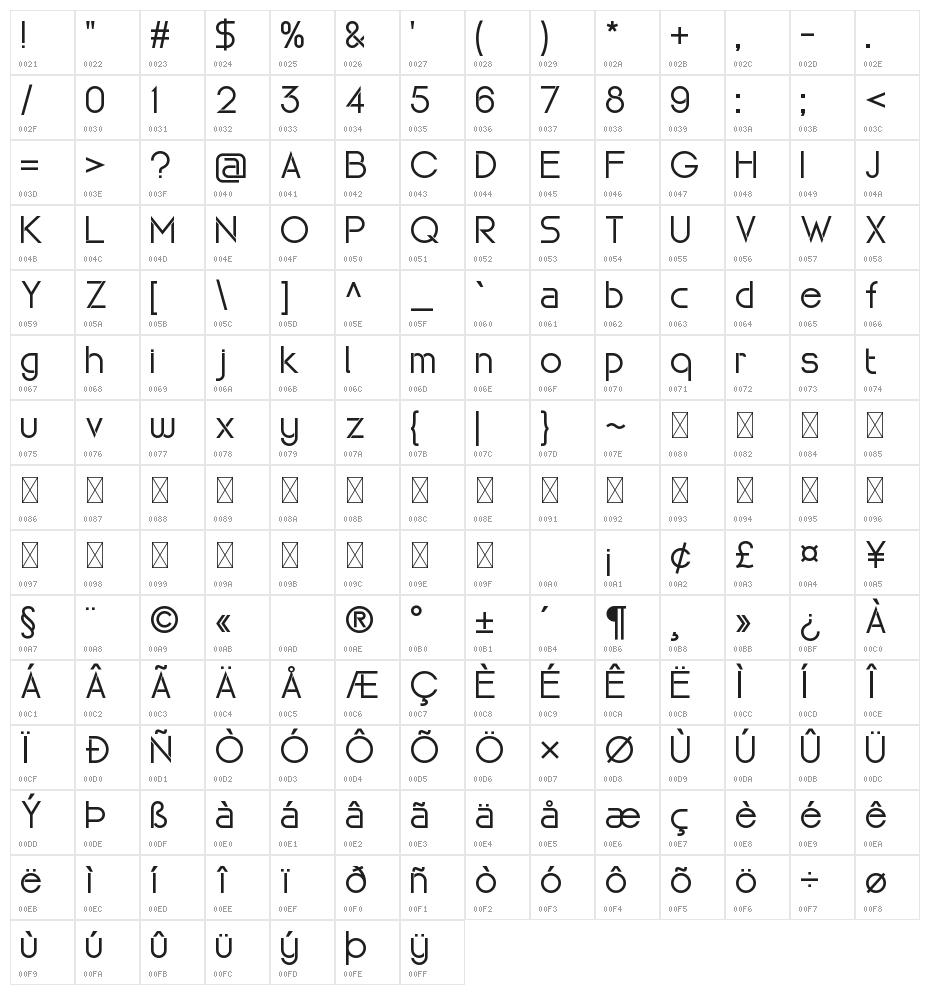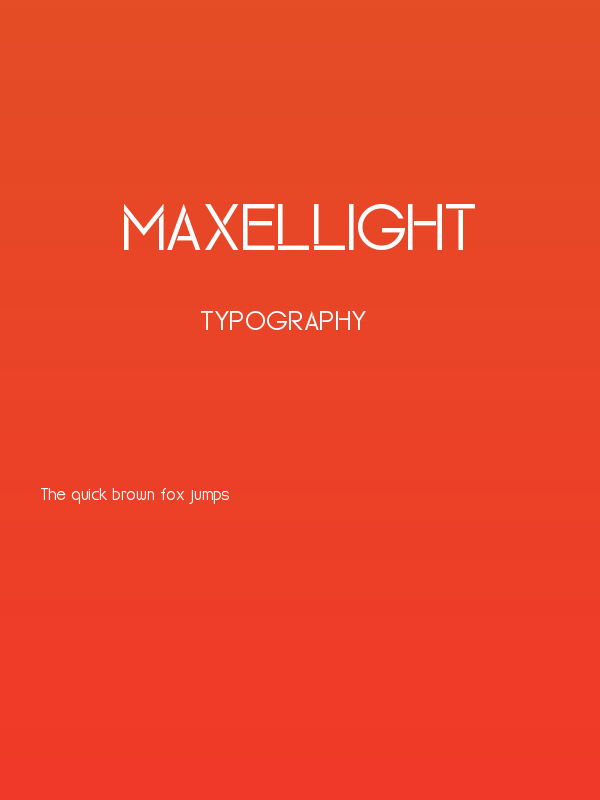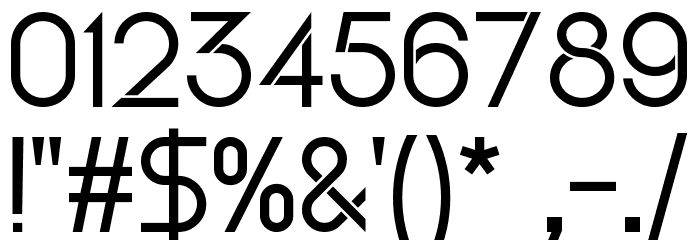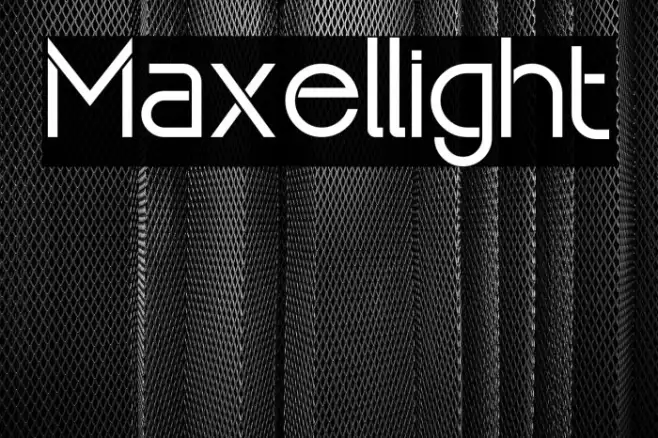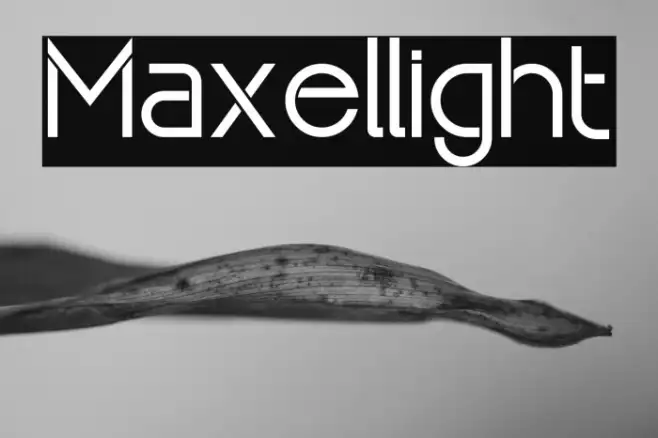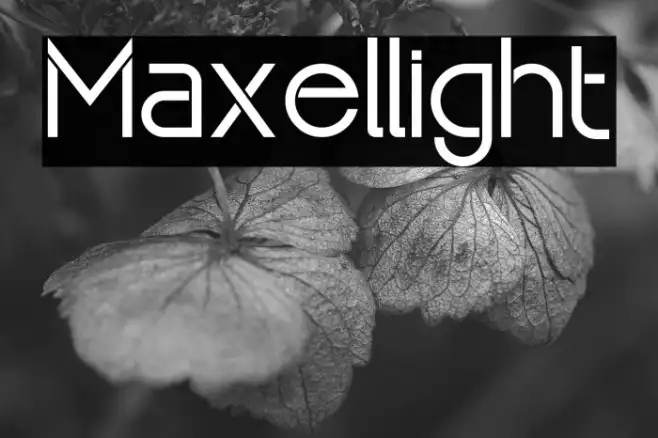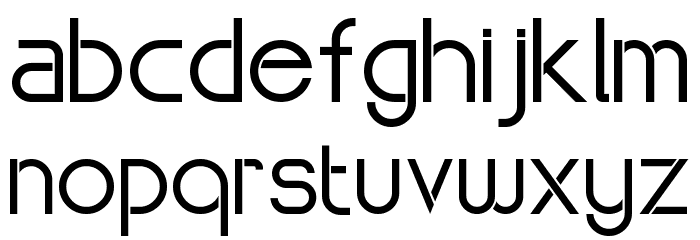
Maxellight Font
Maxellight Description
This font features a sleek and modern sans-serif design with clean lines and a geometric structure. The uppercase letters are tall and slightly condensed, giving a sense of elegance and sophistication. The lowercase letters maintain a consistent height, contributing to a harmonious and balanced appearance. The numerals are clear and legible, with a uniform width that complements the overall style. Special characters are distinct and well-integrated, ensuring versatility across various applications. The font's minimalistic approach makes it suitable for contemporary design projects, offering a professional and polished look.
| Proposed Projects | Ideal for branding, editorial design, web design, and corporate materials. |